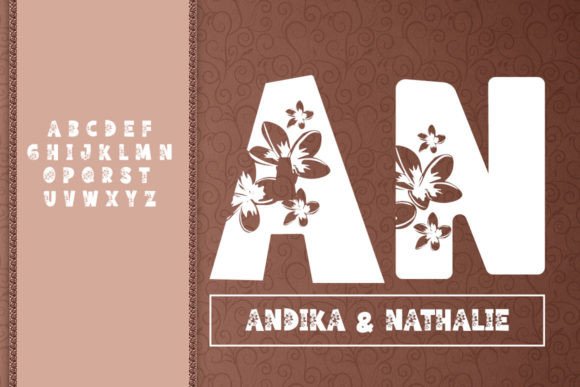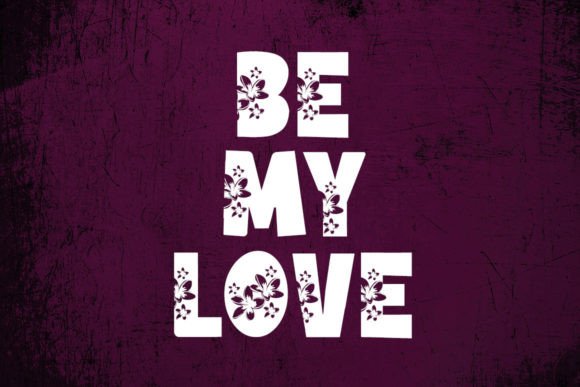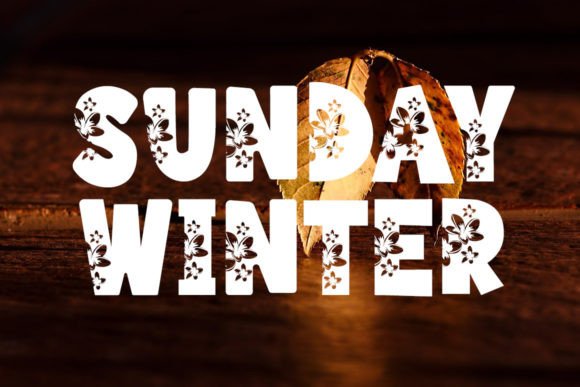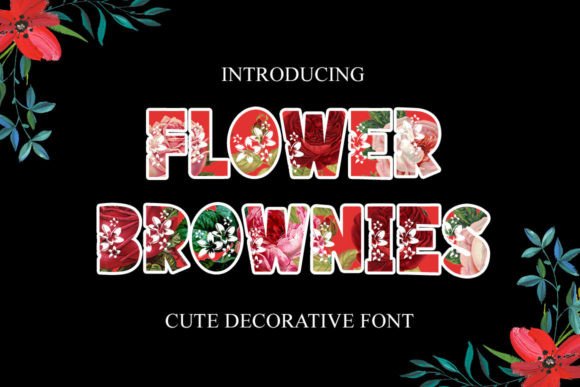
Introducing Flower Brownies Font: The Sweetest Addition to Your Design Collection
Are you tired of using the same old fonts in your designs? Look no further! Flower Brownies Font is a beautiful and sweet font that is sure to add a touch of freshness and quirkiness to your projects. Whether you’re working on a formal or informal design, this font is perfect for adding a joyful touch that will make your work stand out.
What Makes Flower Brownies Font So Special?
Flower Brownies Font is a unique and refreshing font that is perfect for designers and crafters who want to add a personal touch to their work. This font is characterized by its clean and playful lines, making it perfect for a wide range of projects, from wedding invitations and party decorations to social media graphics and branding materials.
Key Features of Flower Brownies Font
- Fresh and Clean Design: Flower Brownies Font features a clean and modern design that is perfect for creating fresh and eye-catching graphics.
- Quirky and Playful: This font has a playful and quirky feel that makes it perfect for adding a touch of personality to your designs.
- Versatile: Flower Brownies Font is suitable for a wide range of projects, from formal to informal, and can be used for both digital and print designs.
- Easy to Read: This font is highly legible, making it perfect for use in body text, headings, and titles.
Flower Brownies Font is a perfect addition to any designer’s or crafter’s collection. Whether you’re creating graphics for social media, designing invitations and party decorations, or working on branding materials, this font is sure to add a touch of sweetness and freshness to your work.
Ideas for Using Flower Brownies Font
- Wedding Invitations: Use Flower Brownies Font to create beautiful and unique wedding invitations that will set the tone for a special day.
- Party Decorations: Add a playful touch to your party decorations with this font, perfect for creating banners, garlands, and other festive elements.
- Social Media Graphics: Use Flower Brownies Font to create eye-catching social media graphics that will help your brand stand out.
- Branding Materials: Add a touch of personality to your branding materials, such as business cards, brochures, and packaging, with this unique font.
- Experiment with Different Sizes: Try using Flower Brownies Font in different sizes to create visual interest and hierarchy in your designs.
- Pair with Other Fonts: Experiment with pairing Flower Brownies Font with other fonts to create a unique and interesting combination.
- Use in Combination with Images: Use Flower Brownies Font in combination with images or illustrations to add an extra layer of meaning and visual interest to your designs.
Flower Brownies Font is a beautiful and sweet font that is sure to add a touch of freshness and quirkiness to your designs. With its clean and playful lines, this font is perfect for a wide range of projects, from formal to informal. Whether you’re a designer or crafter, Flower Brownies Font is a perfect addition to your collection.